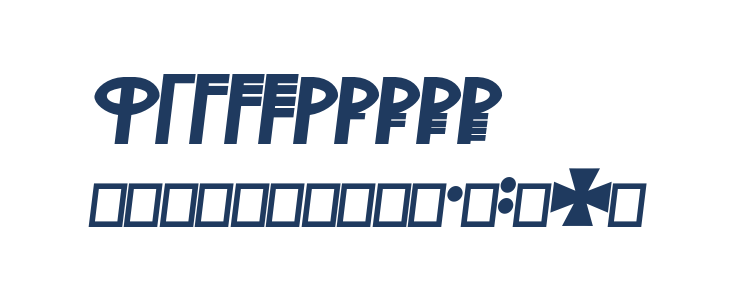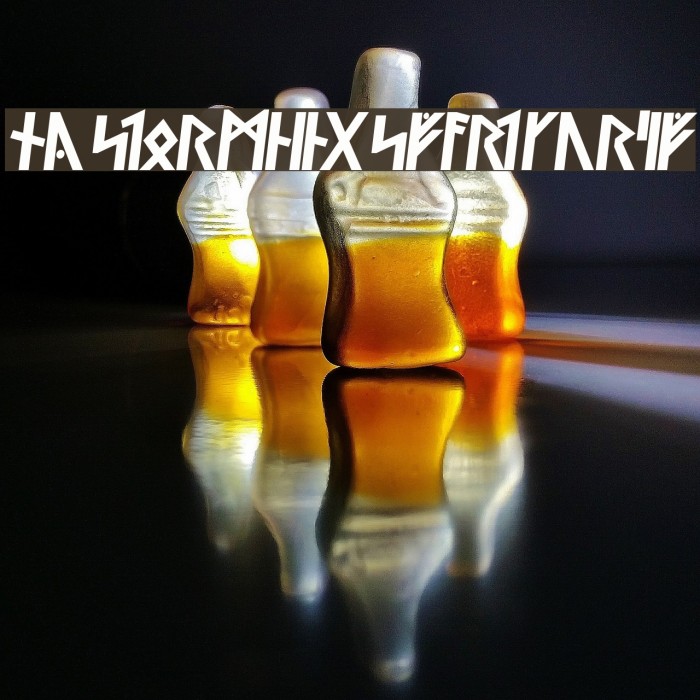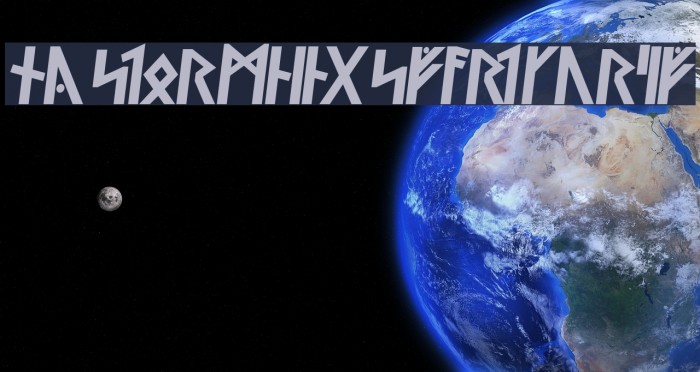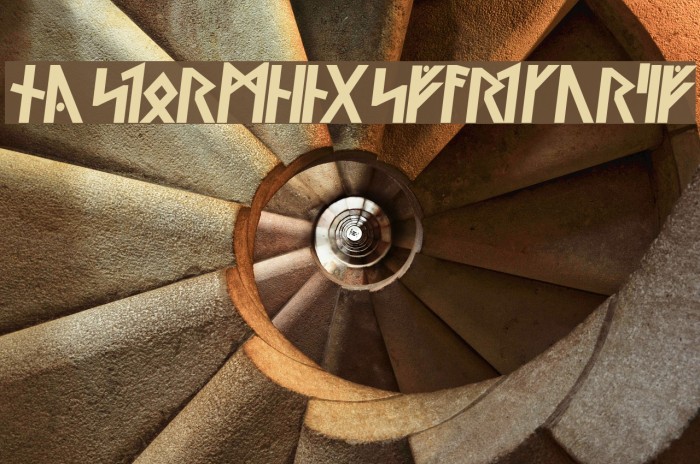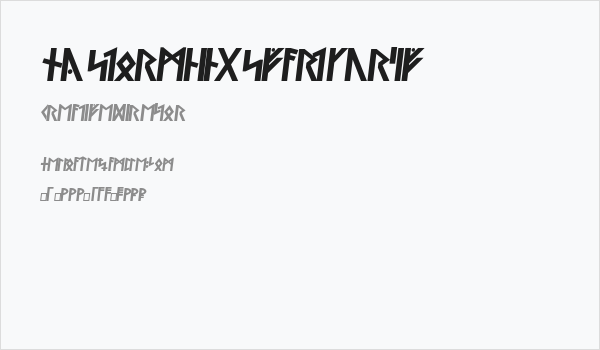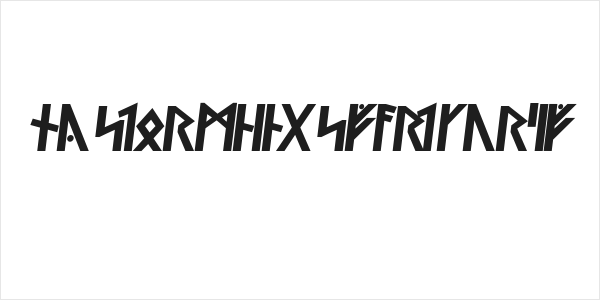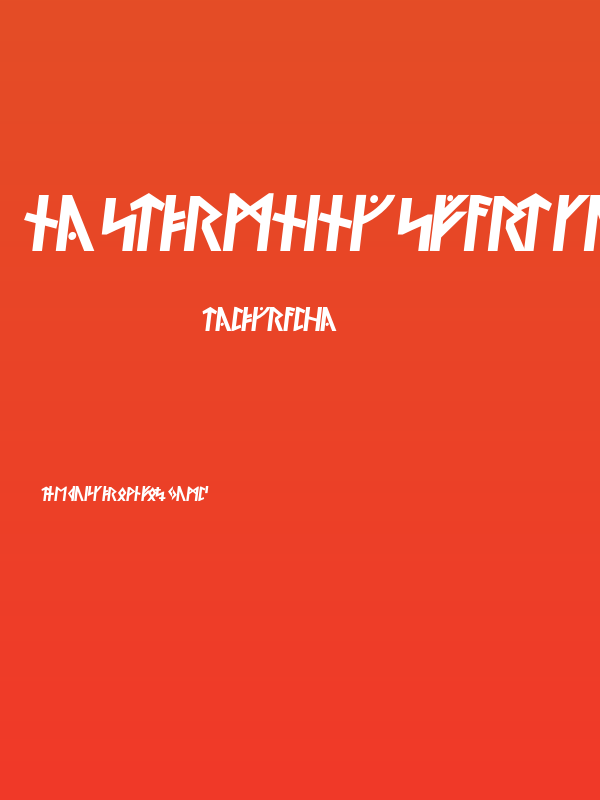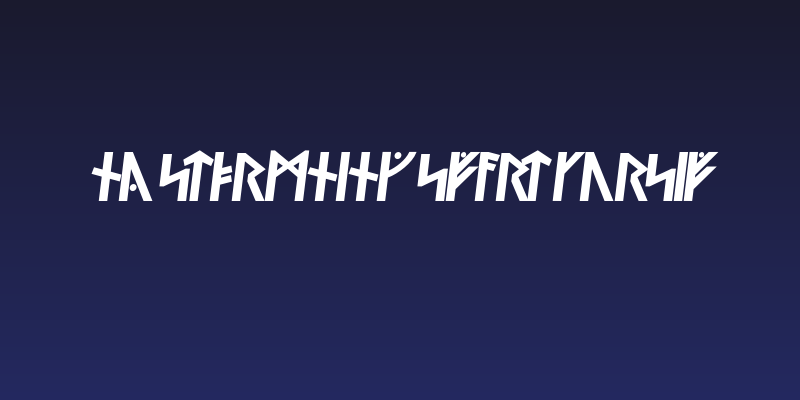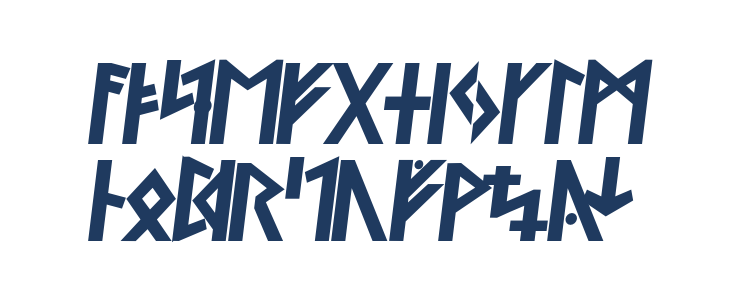
Ny Stormning Svart Kursiv Font
Ny Stormning Svart Kursiv Description
This font features a bold and angular design, reminiscent of ancient runic or tribal scripts. The characters are sharply defined with a strong geometric influence, creating a sense of power and mystery. Each letter is distinct, with unique cuts and angles that give the font a dynamic and aggressive appearance. The uppercase and lowercase letters maintain a consistent style, while the numbers and special characters integrate seamlessly into the overall design. This font's striking appearance makes it ideal for projects that require a bold statement.
| Proposed Projects | Ideal for fantasy-themed designs, game titles, posters, and branding that requires a strong, mysterious aesthetic. |